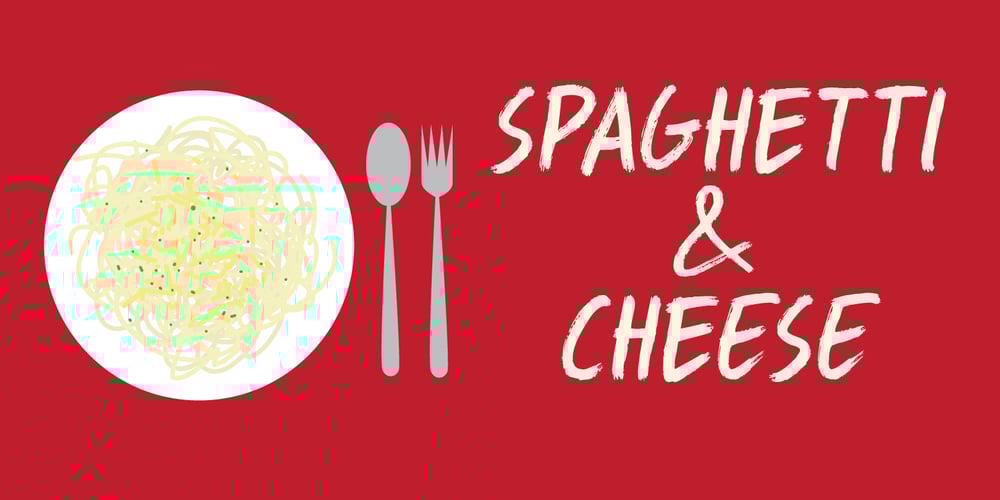
Spaghetti And Cheese Font Family was designed by David Kerkhoff and published by Hanoded. Spaghetti And Cheese contains 2 styles and family package options. Who doesn’t like Spaghetti & Cheese? Well, my son doesn’t like it, because he hates cheese, but he seems to be one of the few. Spaghetti & Cheese is also a handmade font: slightly slanted, slightly eroded, yet very legible and clear. It was made with a Japanese ‘Shake & Write’ marker pen. Comes with a generous topping of diacritics.